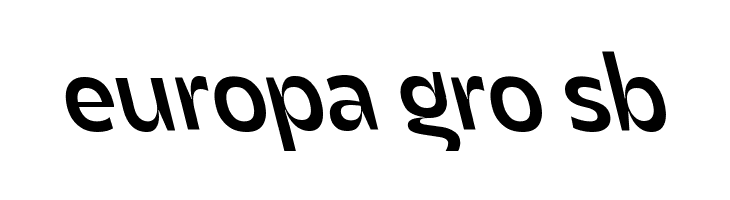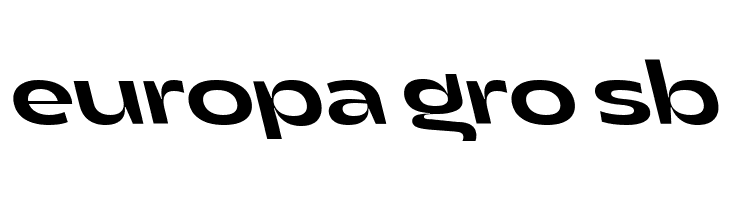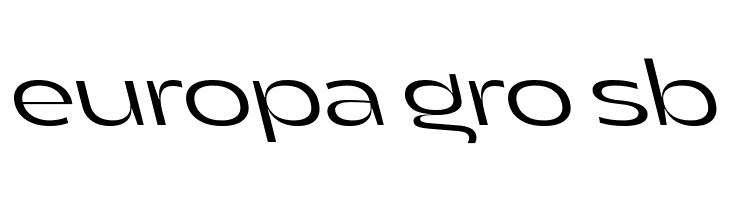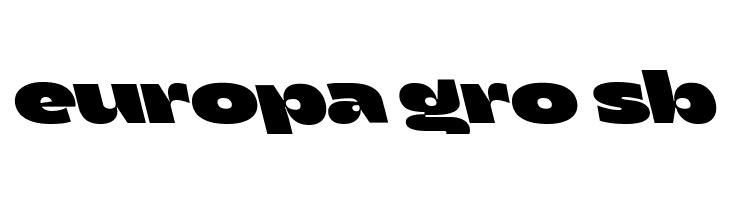
A whimsical, decorative font with playful swirls and loops.
A playful, handwritten script font with a lively and dynamic style.
Hand-drawn school-themed dingbat illustrations.
A whimsical font with cartoon-style animal illustrations.
A playful dingbat font with school-themed icons, perfect for educational projects.
A bold, hand-drawn font with a slightly condensed style and artistic flair.
An ornate and decorative script font with elegant swirls and flourishes.
A bold, geometric dingbat font featuring road sign shapes.
A playful, hand-drawn font with whimsical and bold letterforms.
A casual, handwritten font with smooth, rounded strokes and balanced spacing.
A bold, graffiti-inspired font with a playful, urban style.
A dynamic and flowing script font with elegant, cursive letterforms.
A bold, cursive font with fluid, elegant strokes.
A dynamic, handwritten font with fluid and expressive strokes.
A modern sans-serif font with geometric shapes and uniform strokes.
A sleek, modern, and light italic font with a minimalistic design.
A bold, modern sans-serif font with clean lines and uniform spacing.
A sleek, modern italic font with uniform stroke width and geometric design.
A bold, italicized font with a modern and clean design.
A thin, modern font with a minimalist and sleek design.
A bold, classic serif font with strong contrast and sharp serifs.
A lively handwritten font with fluid strokes and a casual style.
A bold, expressive handwritten font with fluid strokes and a playful style.
A bold, brush-style font with dynamic, hand-drawn strokes.
A bold, flowing script font with elegant, connected strokes.
A dynamic and expressive handwritten font with fluid strokes.
A playful and expressive handwritten font with fluid, dynamic strokes.
A bold, handwritten font with a playful and dynamic style.
Bold, dynamic handwritten script font.
Bold, angular, and futuristic font.
Modern, playful handwritten script with decorative swashes.
Whimsical handwritten script with tall, narrow, and expressive letterforms.
Playful, tall handwritten font with a whimsical style.